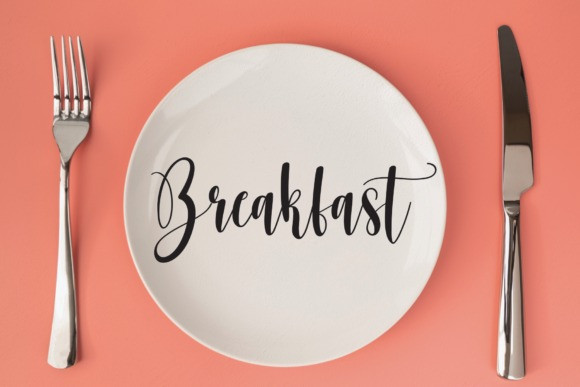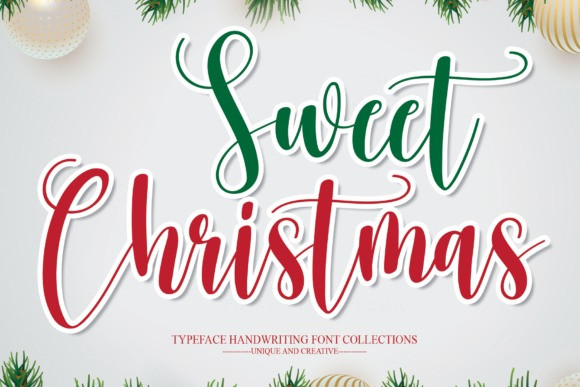
Sweet Christmas Font
Sweet Christmas Font is a pleasing and festive handwritten font. Its distinct and well balanced letters make this font a masterpiece. Fall in love with its incredibly versatile style and use it to create spectacular designs!